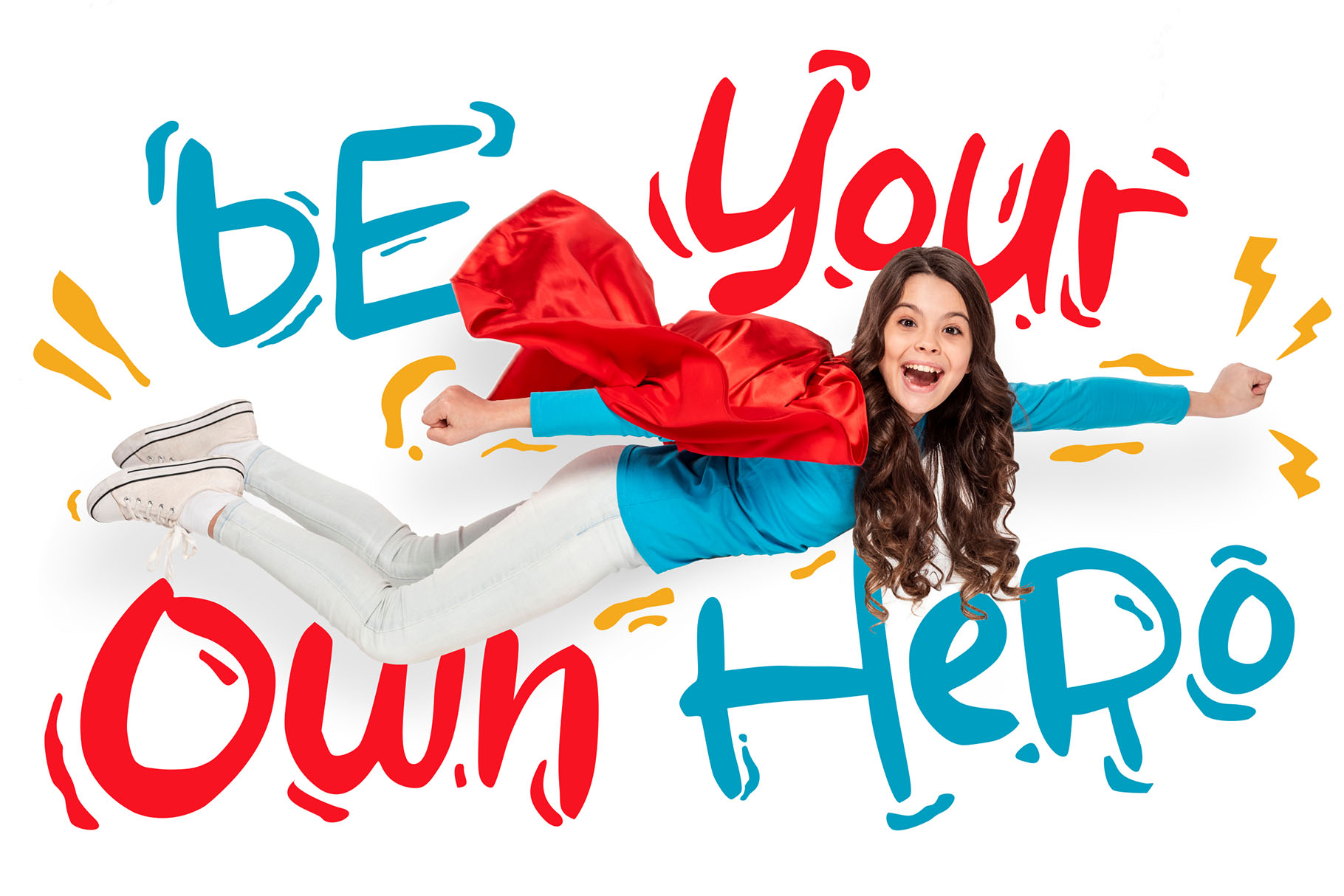
Say hello to Hello Arsenio font.
Made with love and joy. Kids look, so it will make your design more beautiful, cute, fun, and colorful.
- Basic Latin A-Z and a-z
- Numbers
- Symbols
- Multilanguage Support